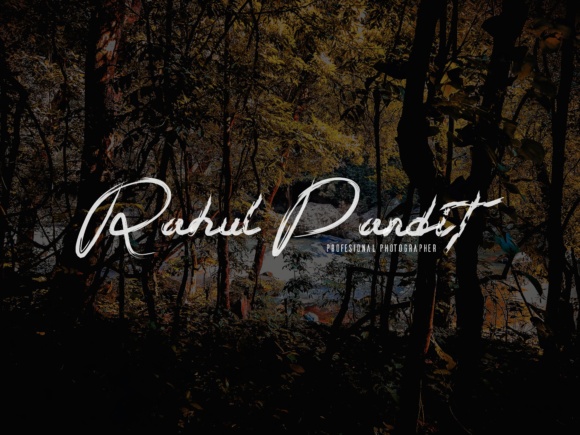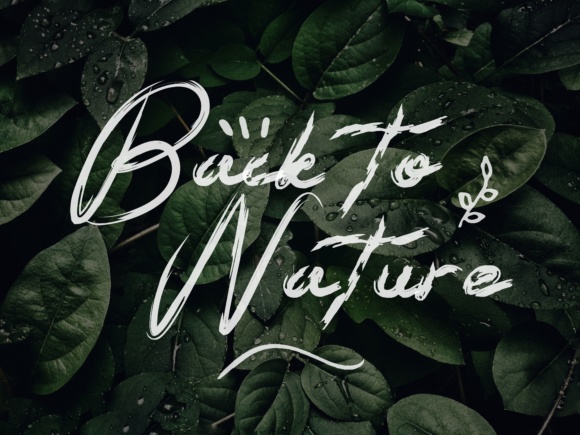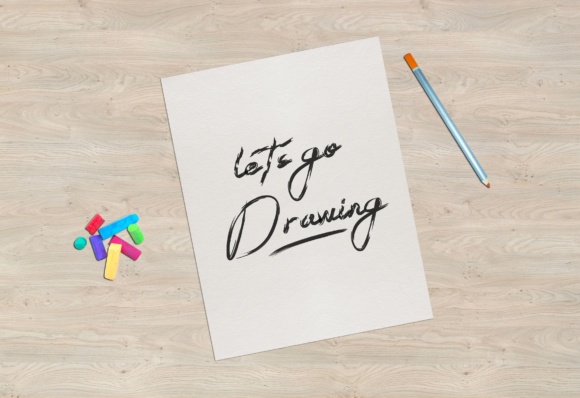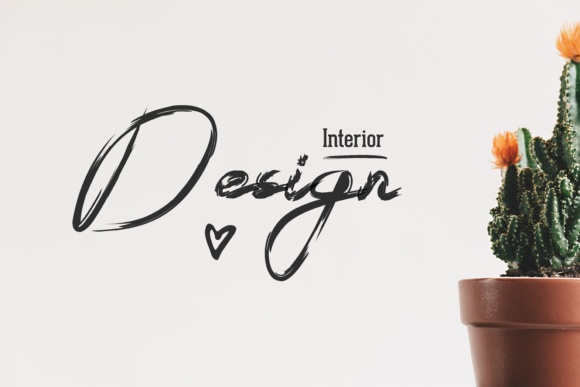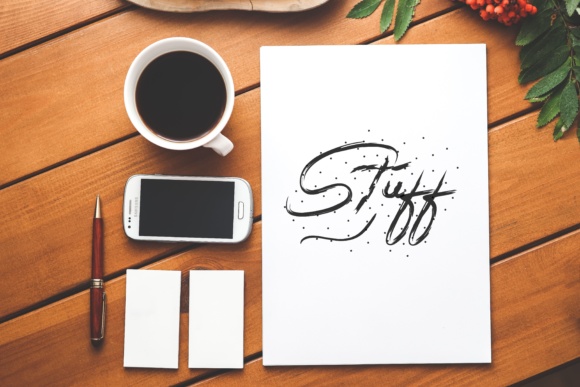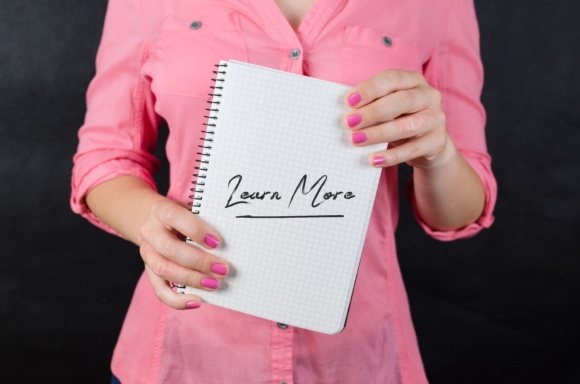
HomeScript FontsRufist Font Script Fonts Rufist Font FacebookXPinterestWhatsApp Rufist Font Poster 2 Rufist Font Poster 3 Rufist Font Poster 4 Rufist Font Poster 5 Rufist Font Poster 6 Rufist Font Poster 7 About Rufist Font The Rufist Brus is a beautiful handwritten brush script. It will give your design a chic and elegant style. DOWNLOAD NOW People also explored Riegal Font Hakatta Signature Font Kintanya Font Celebrate Font Dustine Font Lottus Font Rudland Hand Bright Font Noserif Requrek Font 276 0 TagsRufist Font Previous articleMerry Hamida FontNext articleFuister Script Font LEAVE A REPLY Cancel reply Comment: Please enter your comment! Name:* Please enter your name here Email:* You have entered an incorrect email address! Please enter your email address here Website: Save my name, email, and website in this browser for the next time I comment. Personal Use Free Cuttering Personal Use Free Read more about this font Eva Personal Use Free Read more about this font Sunbright Font Personal Use Free Read more about this font Charletto Personal Use Free Read more about this font BLOG Elegant Wedding Invitation Fonts – Handwritten & Script Fonts Elegant Wedding Invitation Fonts Your wedding day is one of the most important moments of your life, and every detail matters—including your invitation design. Our... Best Fonts for T-Shirt Design – Top 2025 Picks Fonts That Capture the Spirit of New York City Using Fonts in Digital Marketing: Tips to Strengthen Your Brand Identity